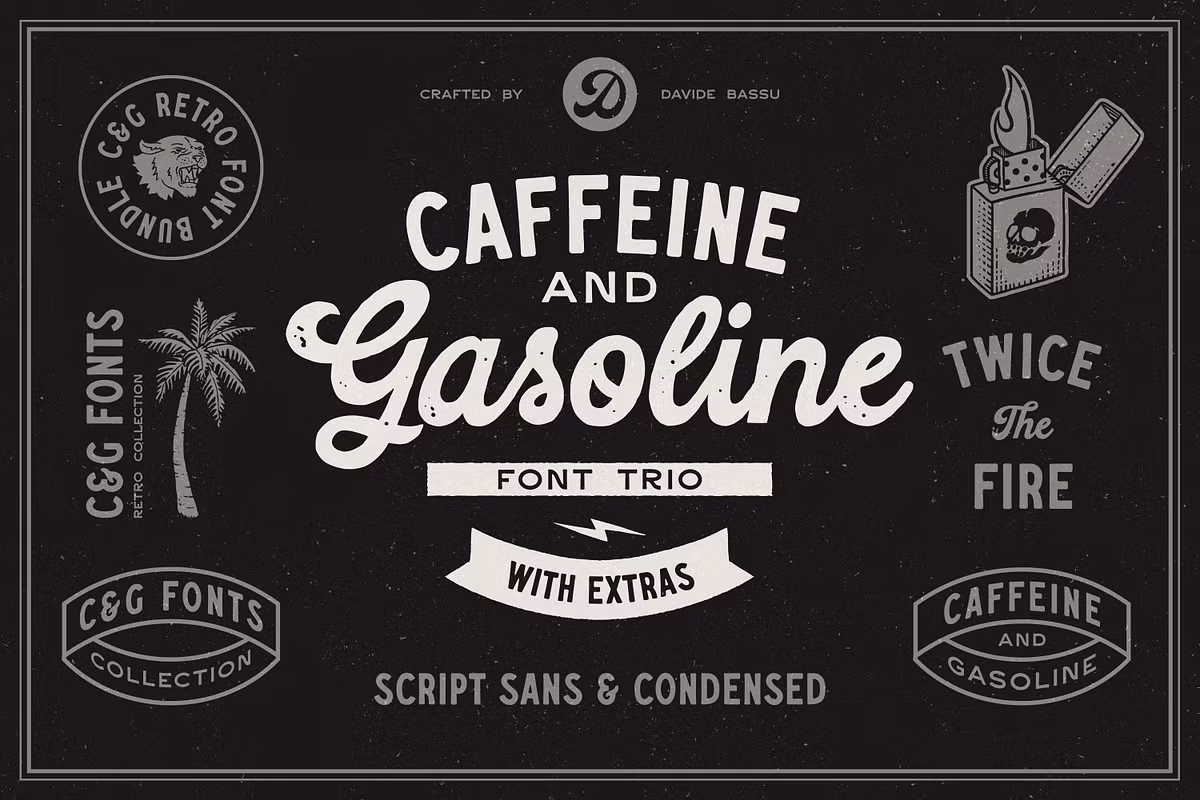
Caffeine & Gasoline Fonts + Extras Free Download is a bold, dynamic font bundle designed for high-energy designs that capture a sense of movement and strength. With its gritty, distressed aesthetic, this font is perfect for logos, posters, branding, and any project that needs to make a statement with style and power.
The bundle includes a combination of font styles with unique extras like textures, flourishes, and decorative elements that enhance your designs and add versatility. Whether you're working on automotive branding, streetwear designs, or something that needs a rugged, industrial look, Caffeine & Gasoline brings a bold and creative edge to your typography.